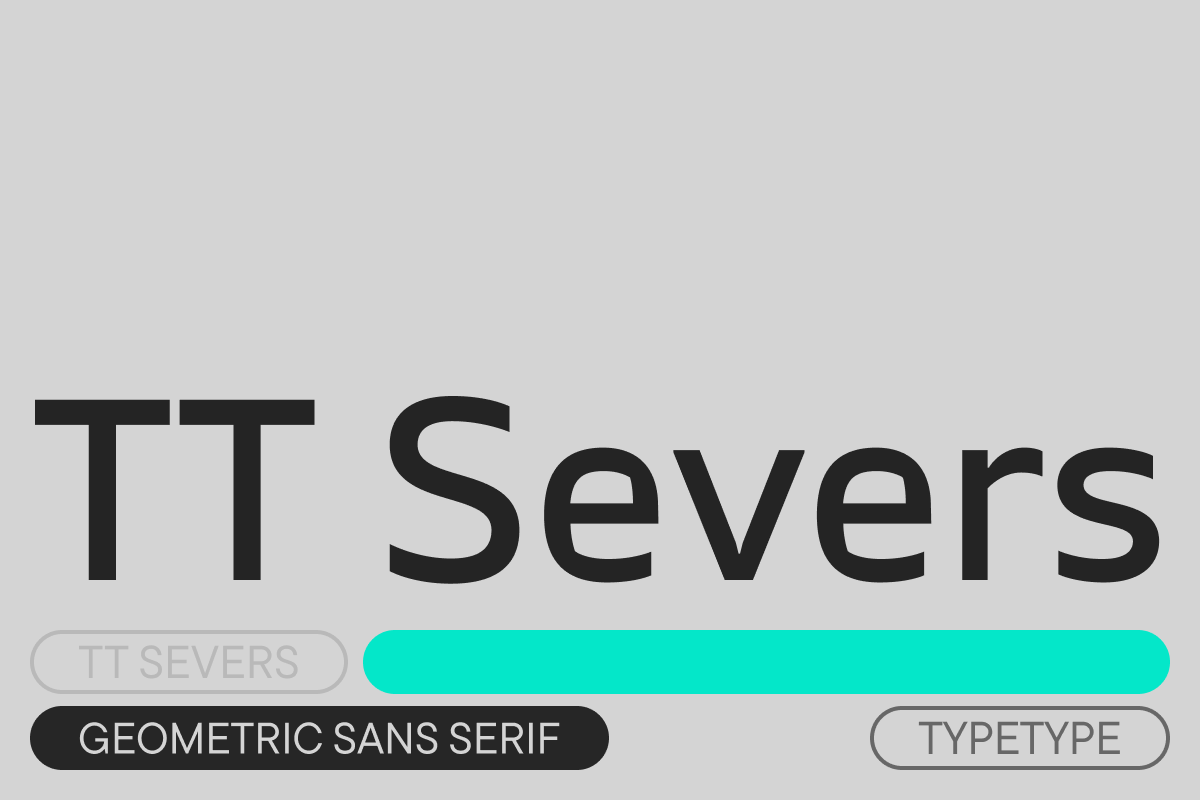
TT Severs DemiBold
TT Severs is a geometric grotesque with emphasized elements of internal brackets. A distinctive feature of TT Severs is the unusual form of internal ovals, which refers us to the style of traditional Arabic writing. TT Severs has a strong character and is great for use in high tech (IT), the web, in robotics, computer games, and sports.